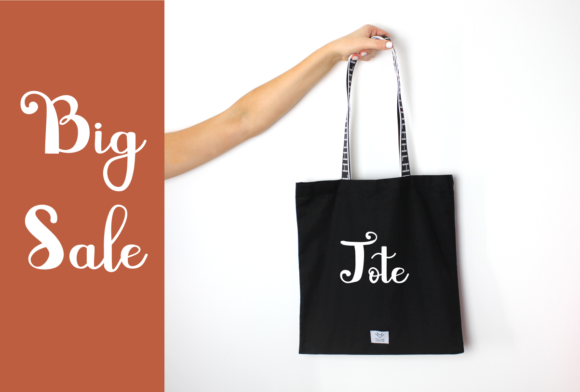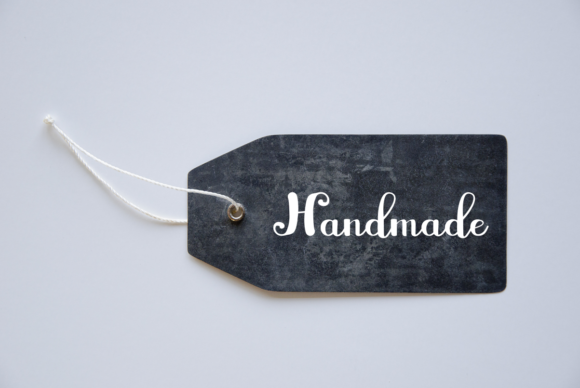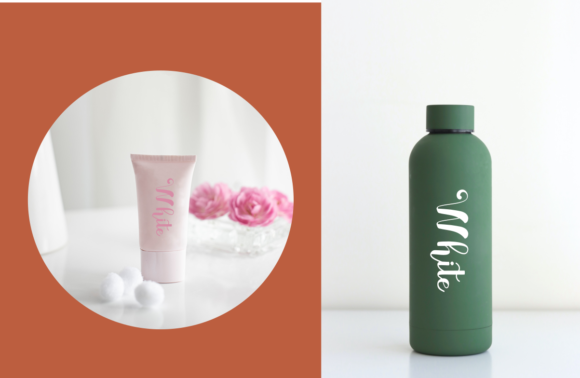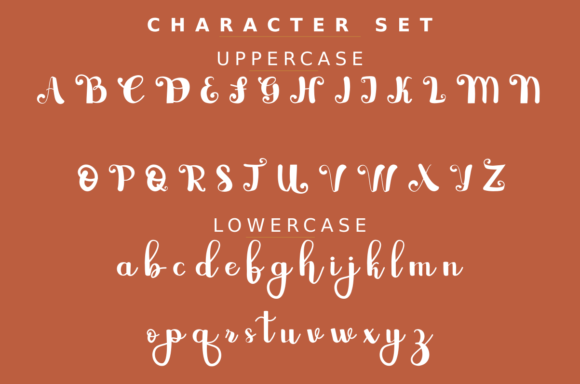
About Himalaya Font
Himalaya is a stylish and chic handwritten font. It has a clean, flowing and smooth vibe and it will be a hit for any design that you want to add it to.